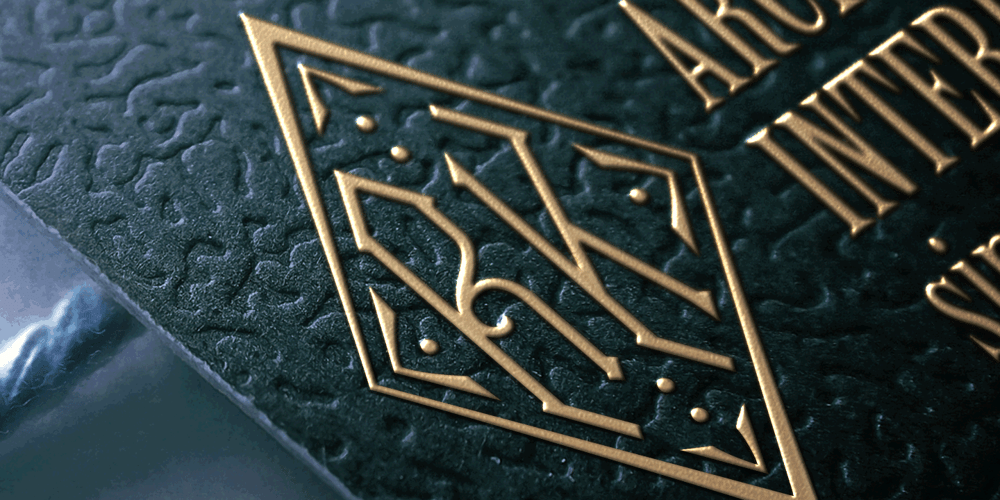
MFC Diamerrick Monogram
MFC Diamerrick Monogram Font Family was designed by Jim Lyles, Brian J. Bonislawsky and published by Monogram Fonts Co.. MFC Diamerrick Monogram contains 2 styles and family package options. The source of inspiration for MFC Diamerrick Monogram is a vintage pre-1930’s diamond shaped initial monogram style by Butterick Transfers. We’ve not only recreated the original styling, but further developed it into a 3-letter diamond monogram format as well. MFC Diamerrick Monogram is capable of traditional two and three letter format monograms, as well as numerous framing options. Diammerick Monogram comes complete with both Initial & Monogram fonts. While the Initial font is straightforward to work with, the Monogram font has several formatting options.